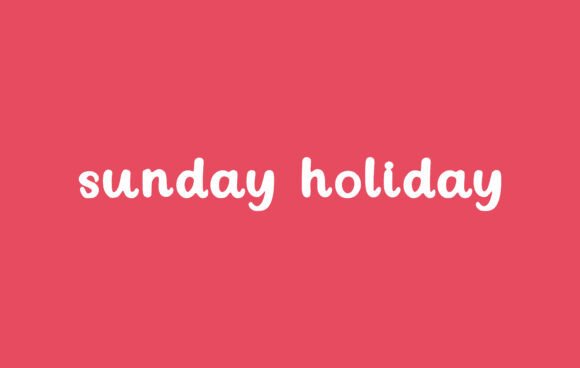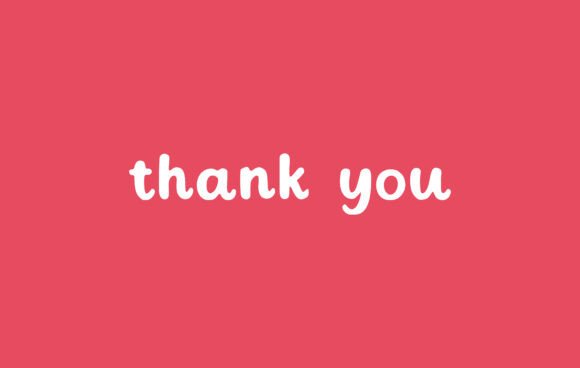
Discover the Charm of Ford Font: Elevate Your Designs with a Romantic Touch
Are you on the hunt for a font that adds a touch of romance and elegance to your designs? Look no further than the Ford Font, a beautiful handwritten font that is sure to capture the hearts of designers and crafters alike. With its authentic, cursive style and legible design, Ford Font is the perfect choice for a wide range of creative projects, from magazine headlines and social media graphics to wedding invitations and branding materials.
The Story Behind Ford Font
Ford Font is more than just a font – it’s a design solution that has been expertly crafted to bring a touch of sophistication and whimsy to your work. Its romantic, handwritten style is reminiscent of classic typography, yet its clean lines and legibility make it perfect for use in both title and body text. Whether you’re a seasoned designer or a crafty DIY enthusiast, Ford Font is sure to become a favorite in your collection.
What Makes Ford Font So Special?
So, what sets Ford Font apart from other fonts on the market? Here are just a few of its standout features:
- Authentic Handwritten Style: Ford Font boasts a genuine, handwritten look that adds a personal touch to any design.
- Legible Design: Despite its cursive style, Ford Font is remarkably legible, making it perfect for use in both titles and body text.
- Romantic Touch: With its elegant lines and flowing curves, Ford Font adds a touch of romance and whimsy to any design.
- Versatile: Ford Font is suitable for a wide range of design applications, from magazine headlines and social media graphics to wedding invitations and branding materials.
Endless Design Possibilities with Ford Font
With Ford Font, the design possibilities are endless. Here are just a few ideas to get you started:
- Magazine Headlines: Use Ford Font to add a touch of elegance and sophistication to your magazine headlines.
- Social Media Graphics: Add a personal touch to your social media graphics with Ford Font’s romantic, handwritten style.
- Wedding Invitations: Make your wedding invitations truly special with Ford Font’s elegant, cursive design.
- Branding Materials: Use Ford Font to add a touch of whimsy and personality to your branding materials, such as business cards and brochures.
Tips for Using Ford Font Effectively
To get the most out of Ford Font, here are a few tips to keep in mind:
- Use it Sparingly: While Ford Font is beautiful, it can be overwhelming if used too much. Use it sparingly to add emphasis and create visual interest.
- Pair it with Other Fonts: Ford Font pairs beautifully with other fonts, such as sans-serif fonts. Experiment with different pairings to find the perfect combination for your design.
- Experiment with Colors: Ford Font looks stunning in a variety of colors. Experiment with different colors to find the perfect shade for your design.